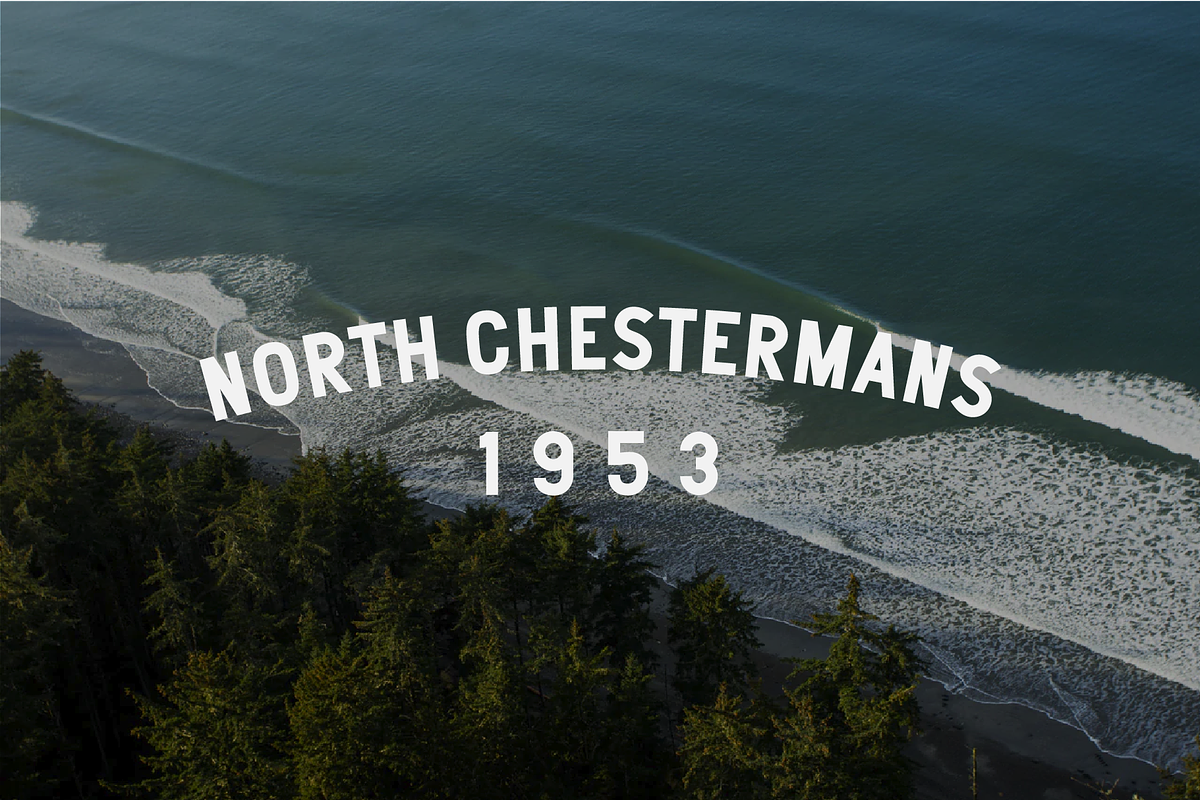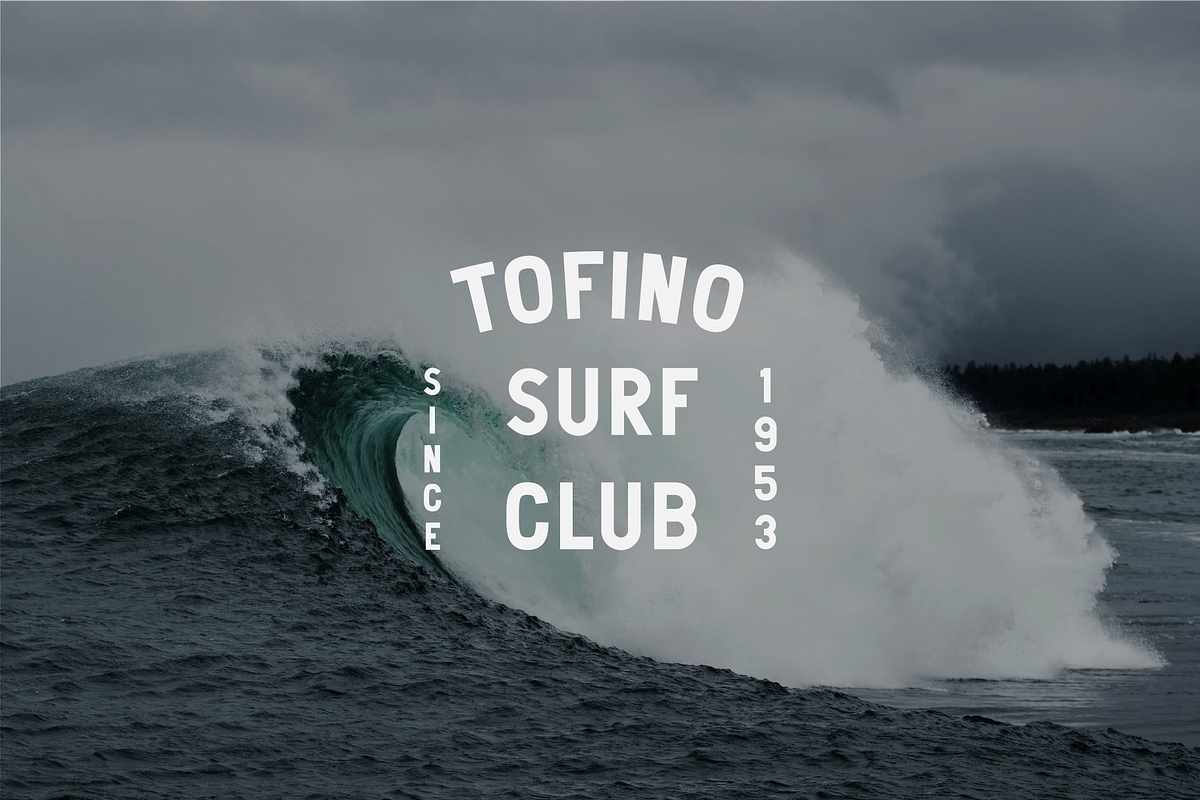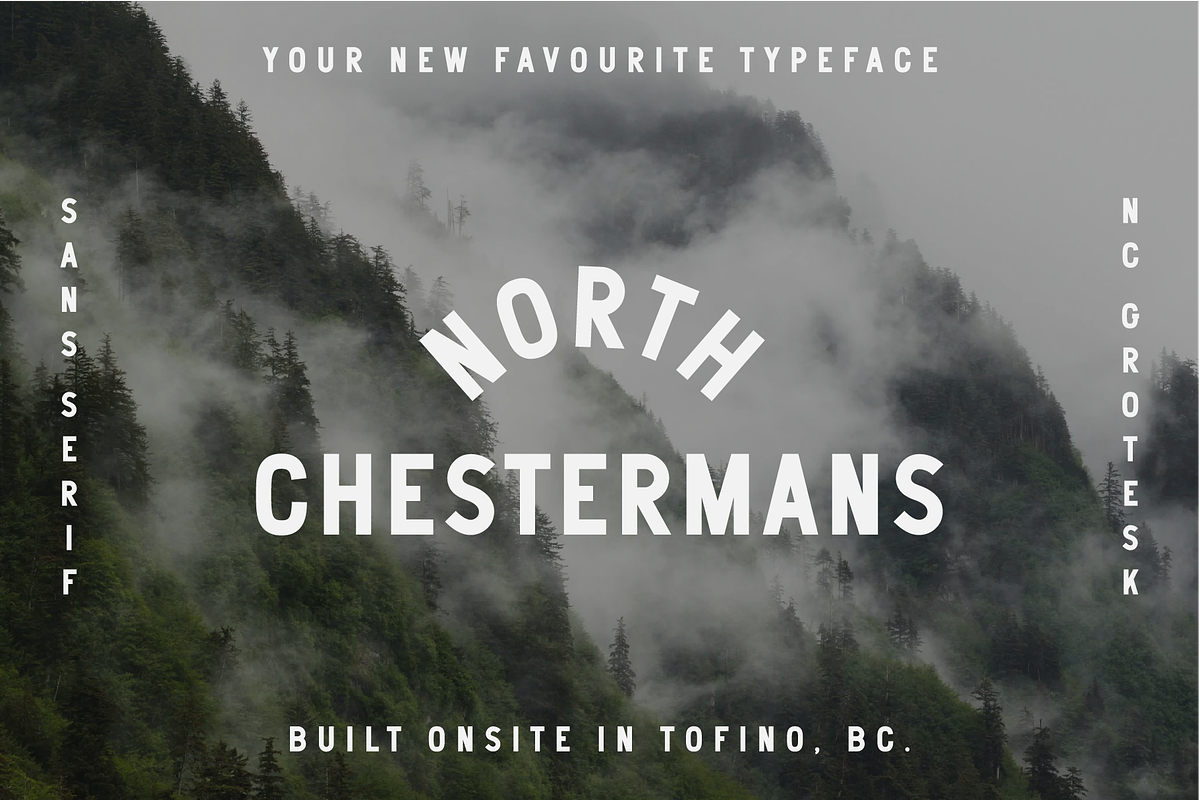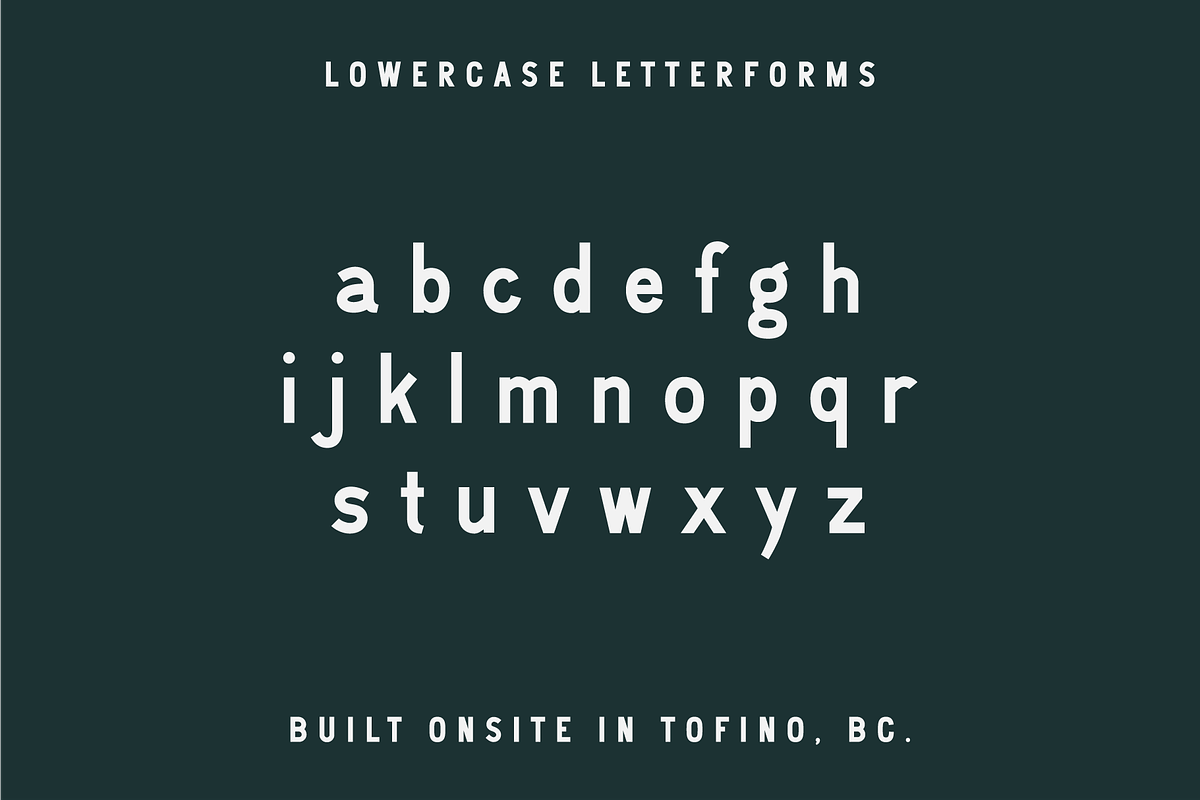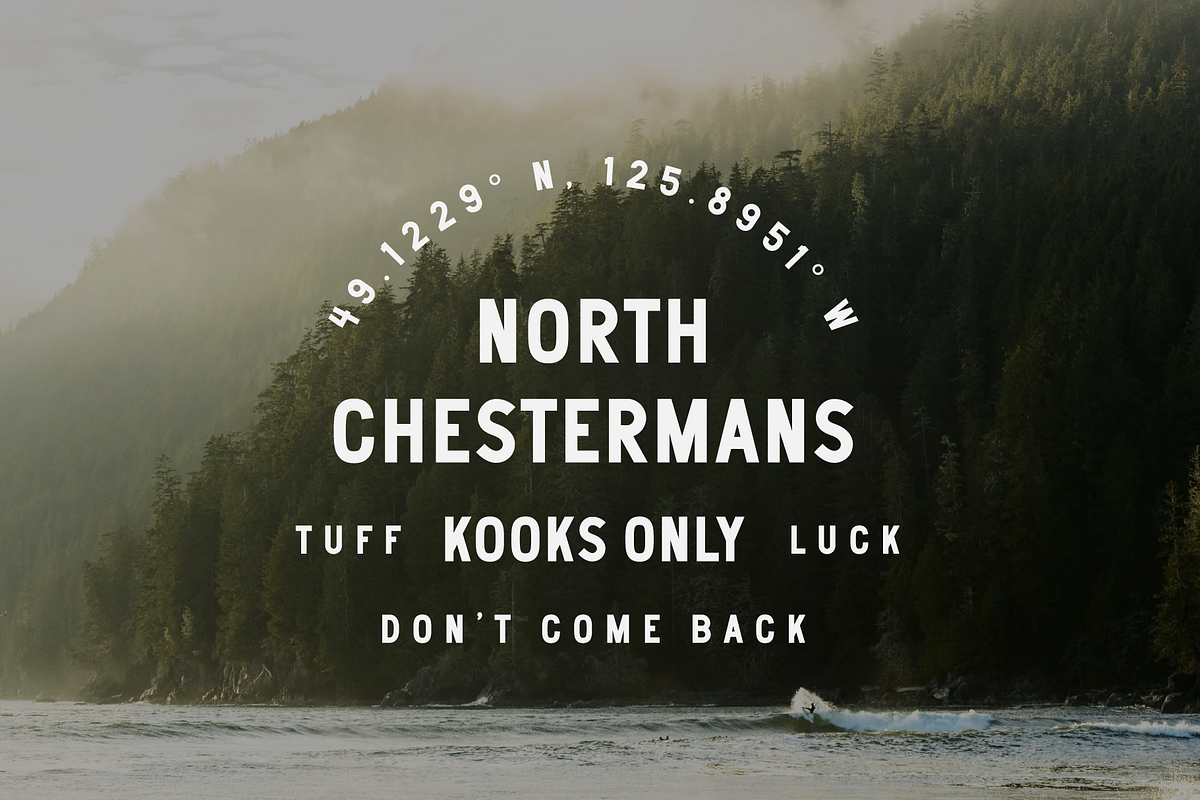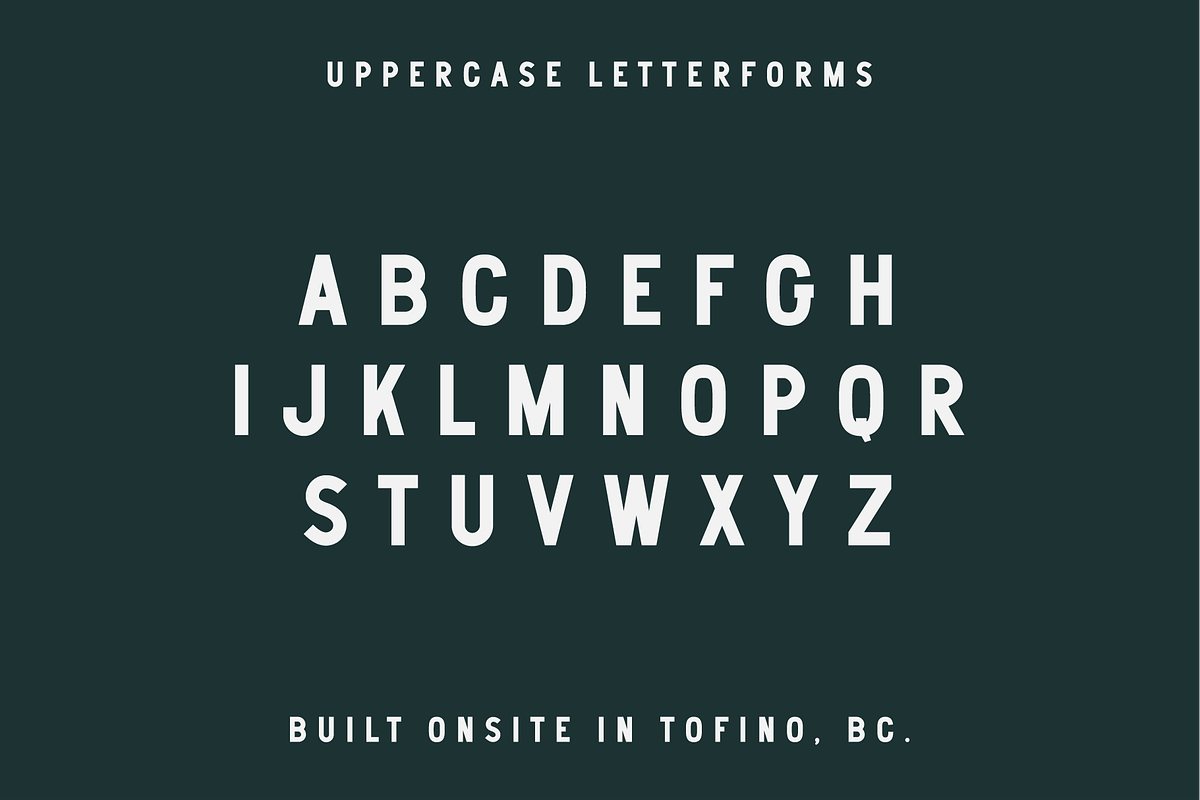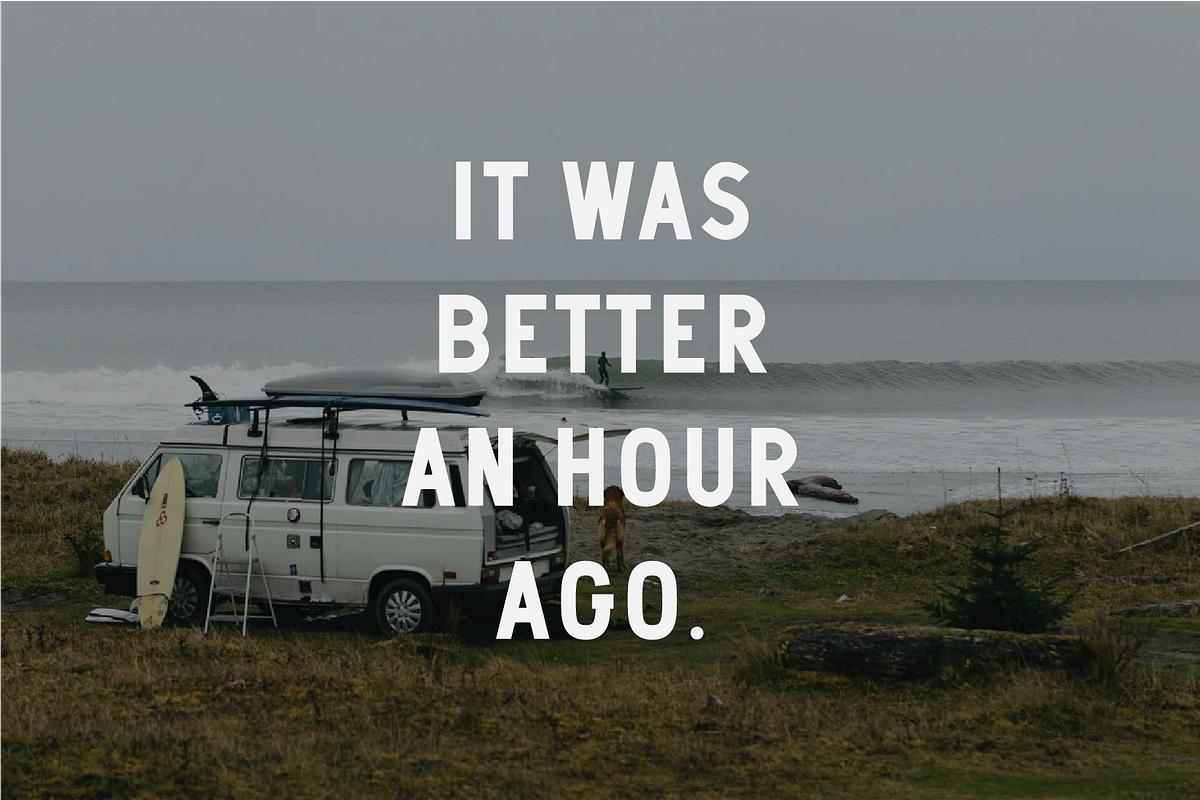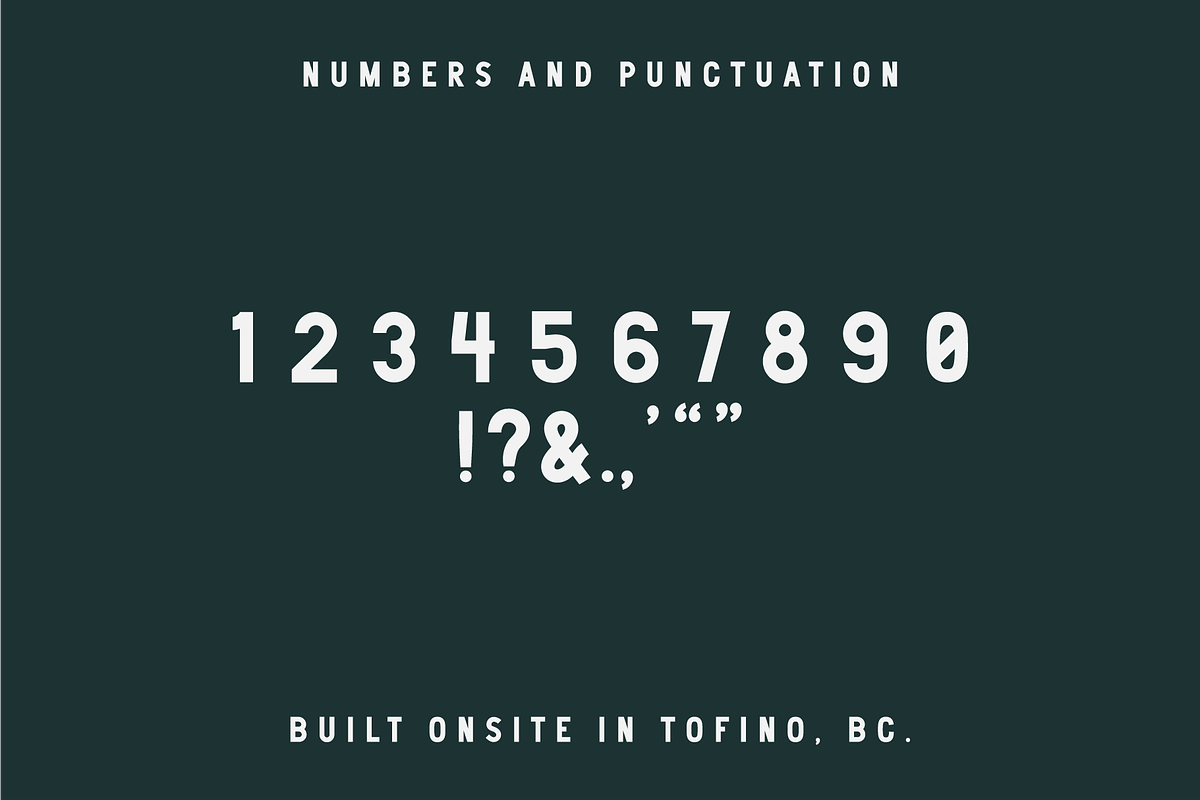
North Chestermans Font
Our North Chestermans typeface has been designed to capture elements of Tofino surfing and the rugged coastline. It is perfect for branding, badges, logos, packaging, posters and typographic lockups. We especially love its use in badges and type lockups.
*We personally love using this font with a set tracking of +100.
North Chestermans Uppercase, Lowercase, Numbers, Basic Punctuation.